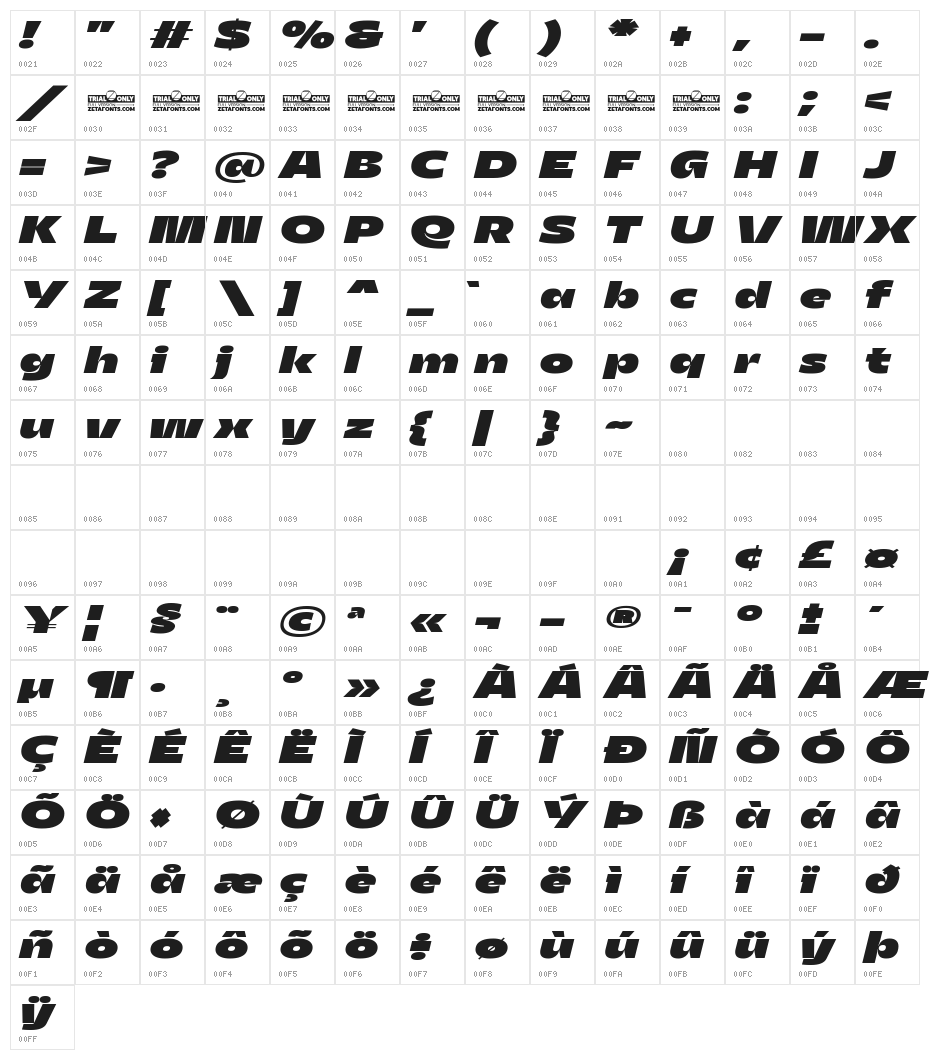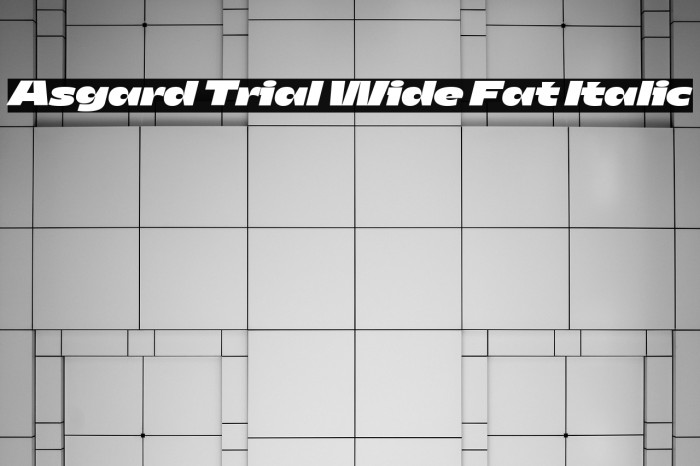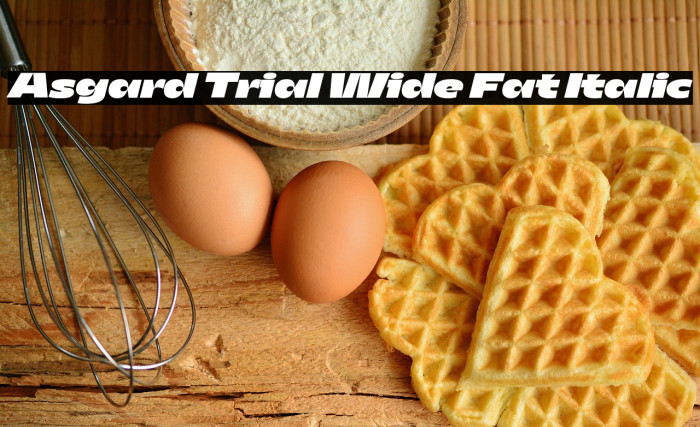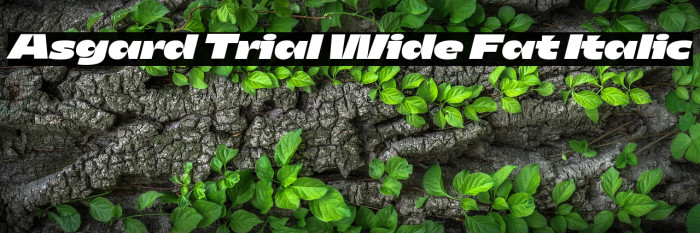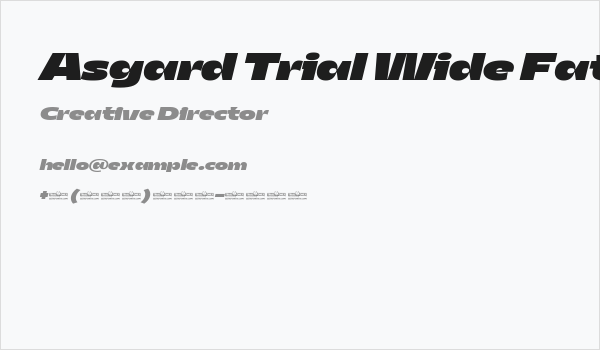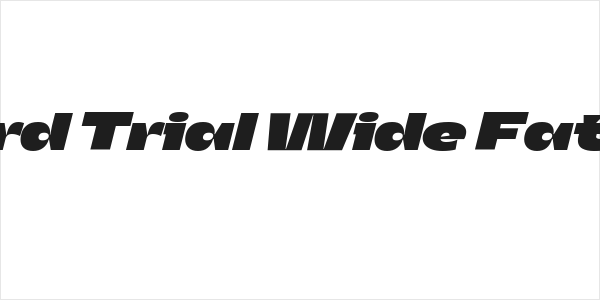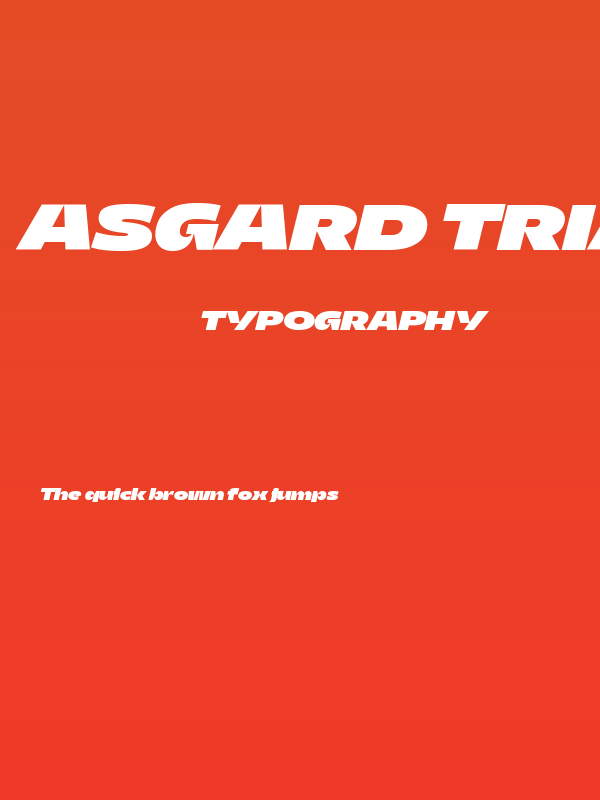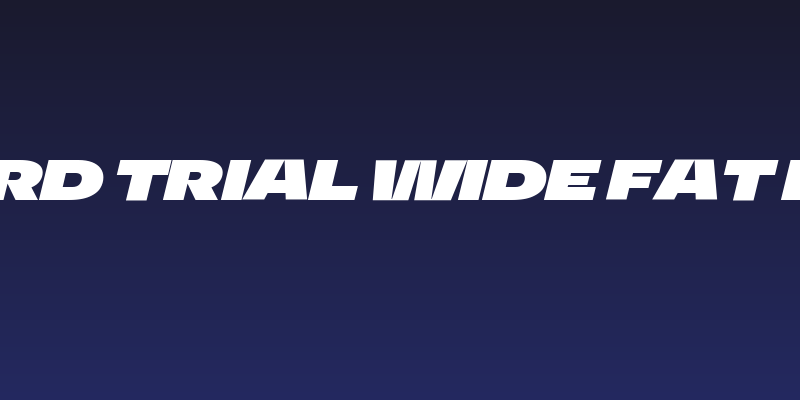
Asgard Trial Wide Fat Italic Font
Asgard Trial Wide Fat Italic Description
This font features a bold and dynamic style with a wide and italicized appearance. The characters are designed with a strong presence, making them ideal for attention-grabbing headlines. The strokes are thick and consistent, providing a sense of stability and power. The italic slant adds a sense of motion and modernity, while the wide letterforms ensure readability even at smaller sizes. The font includes a full set of uppercase and lowercase letters, numbers, and a variety of special characters, making it versatile for various design needs.